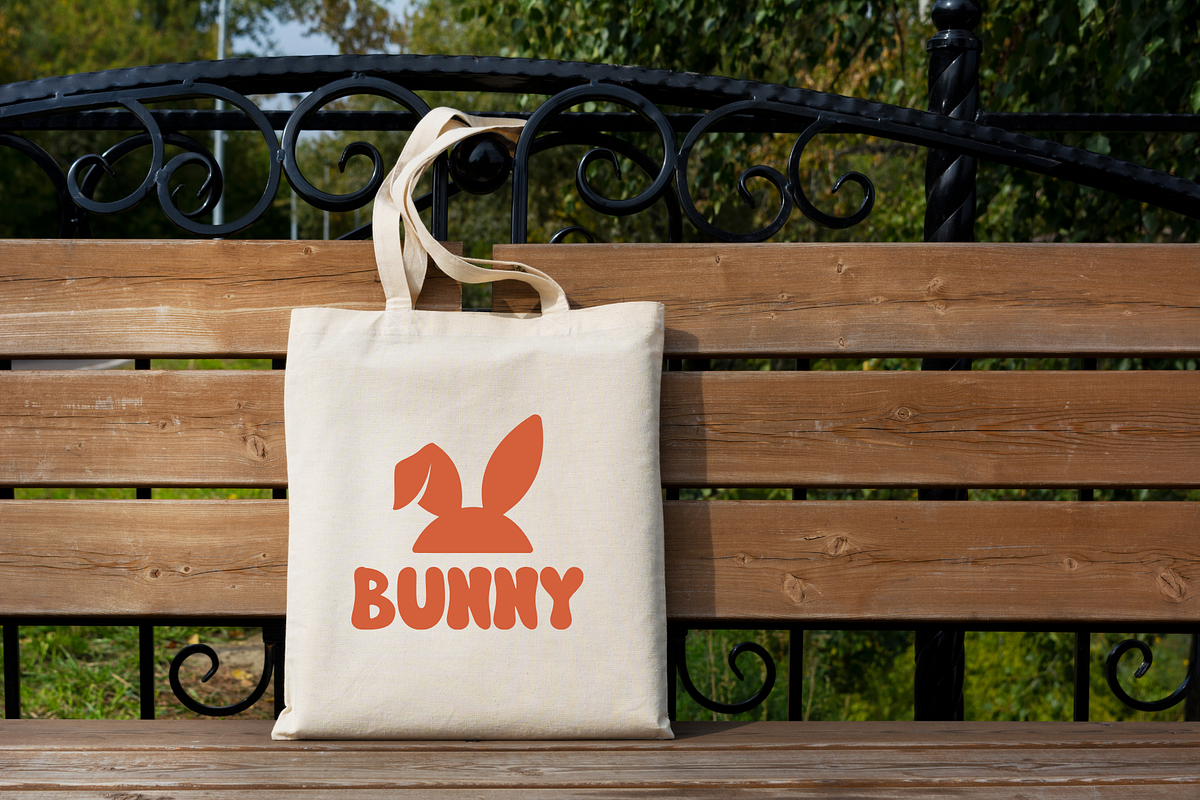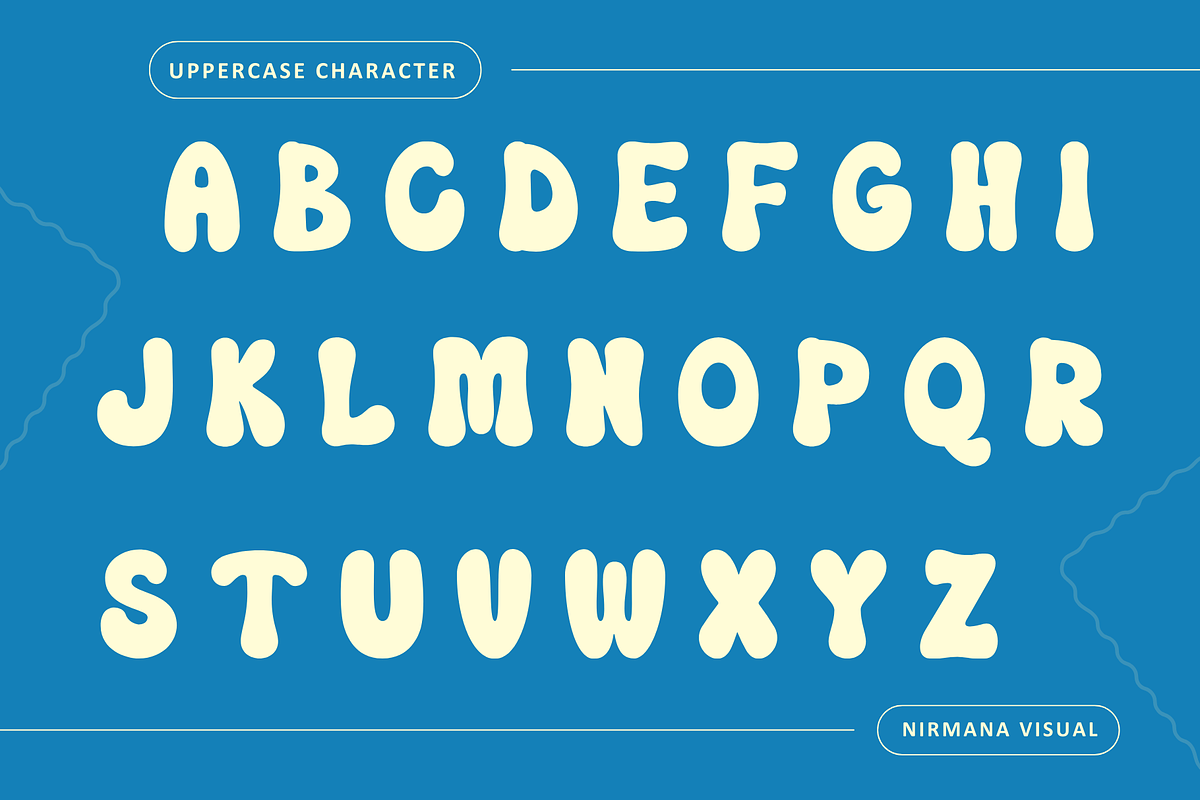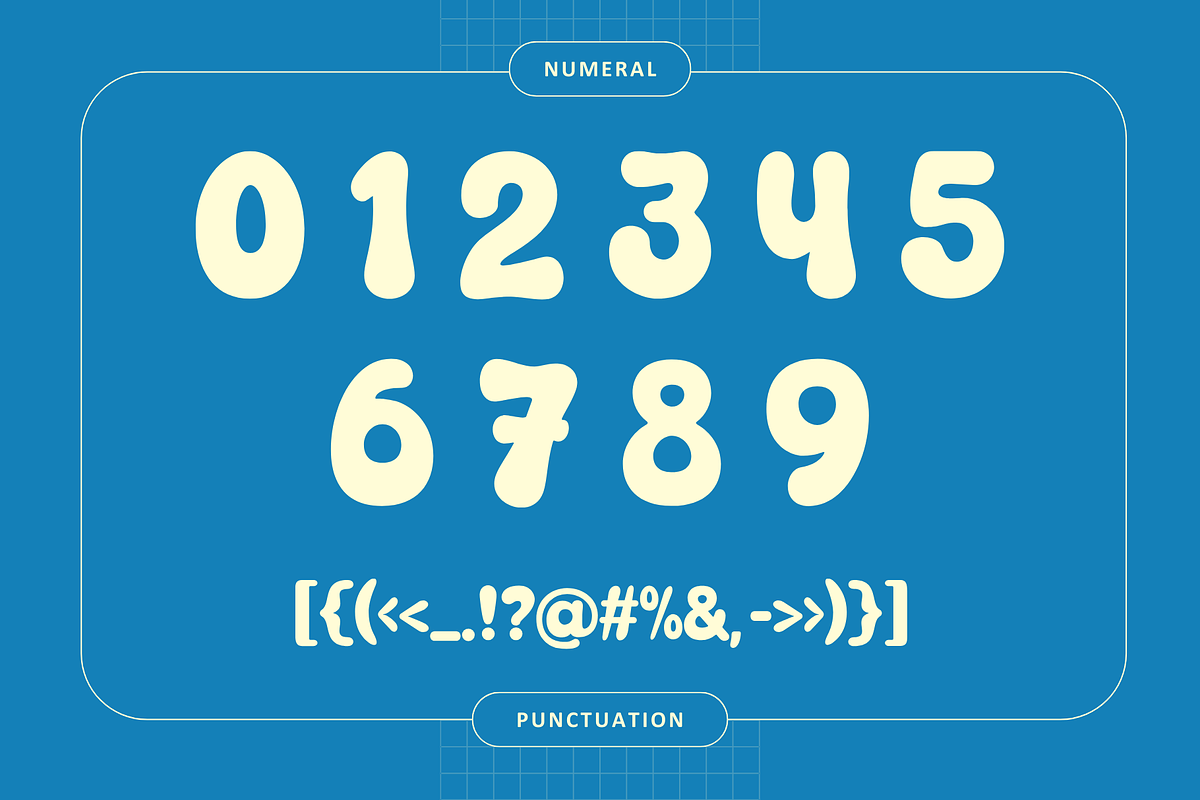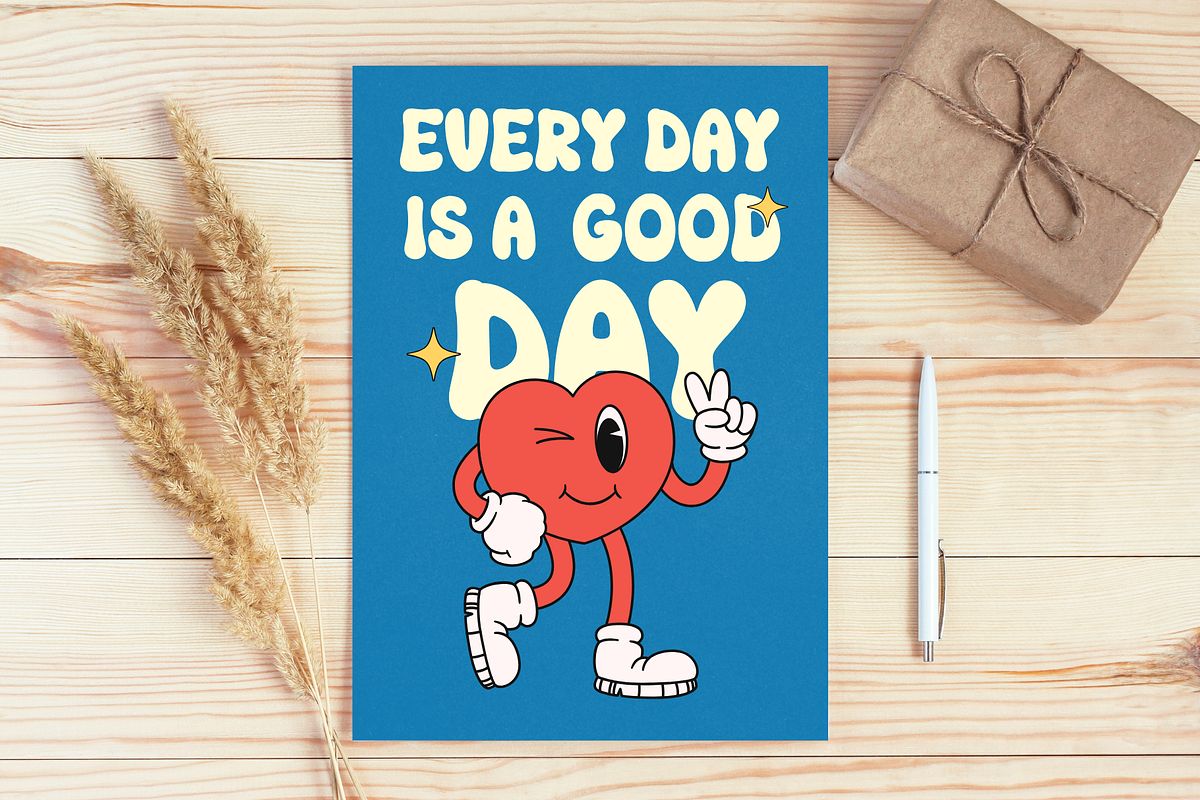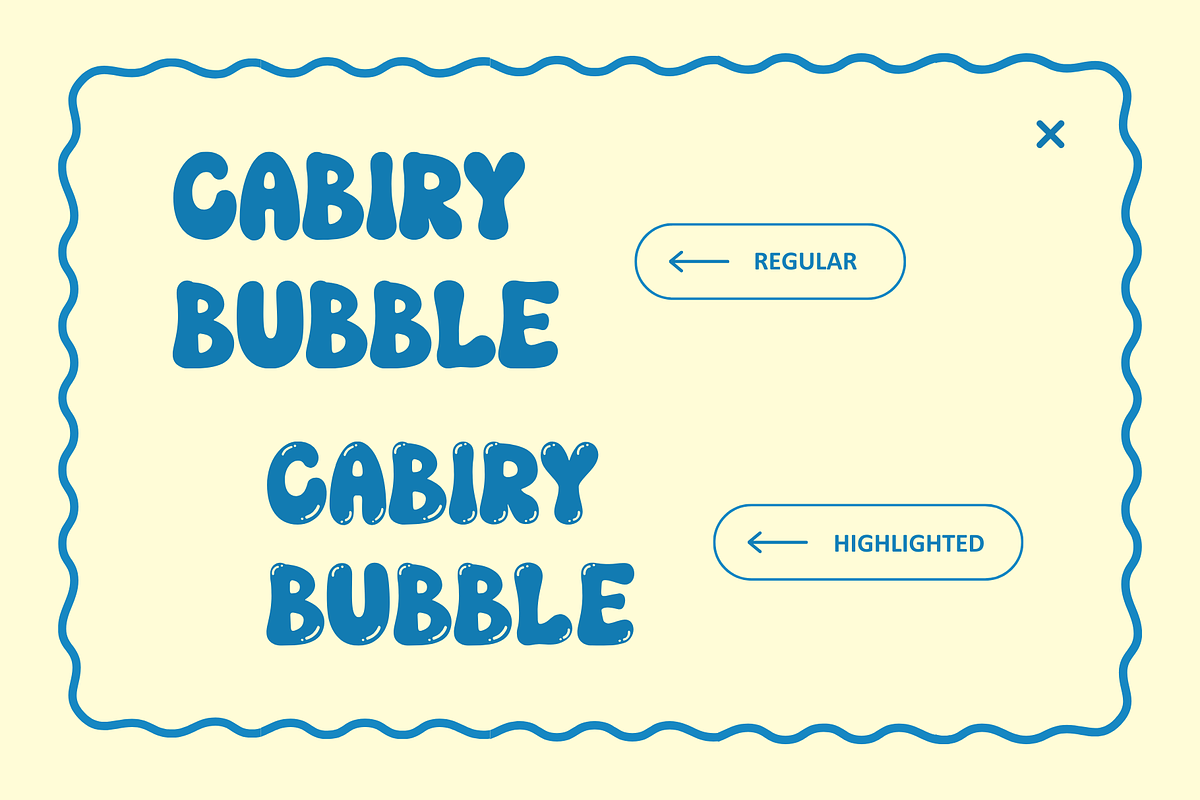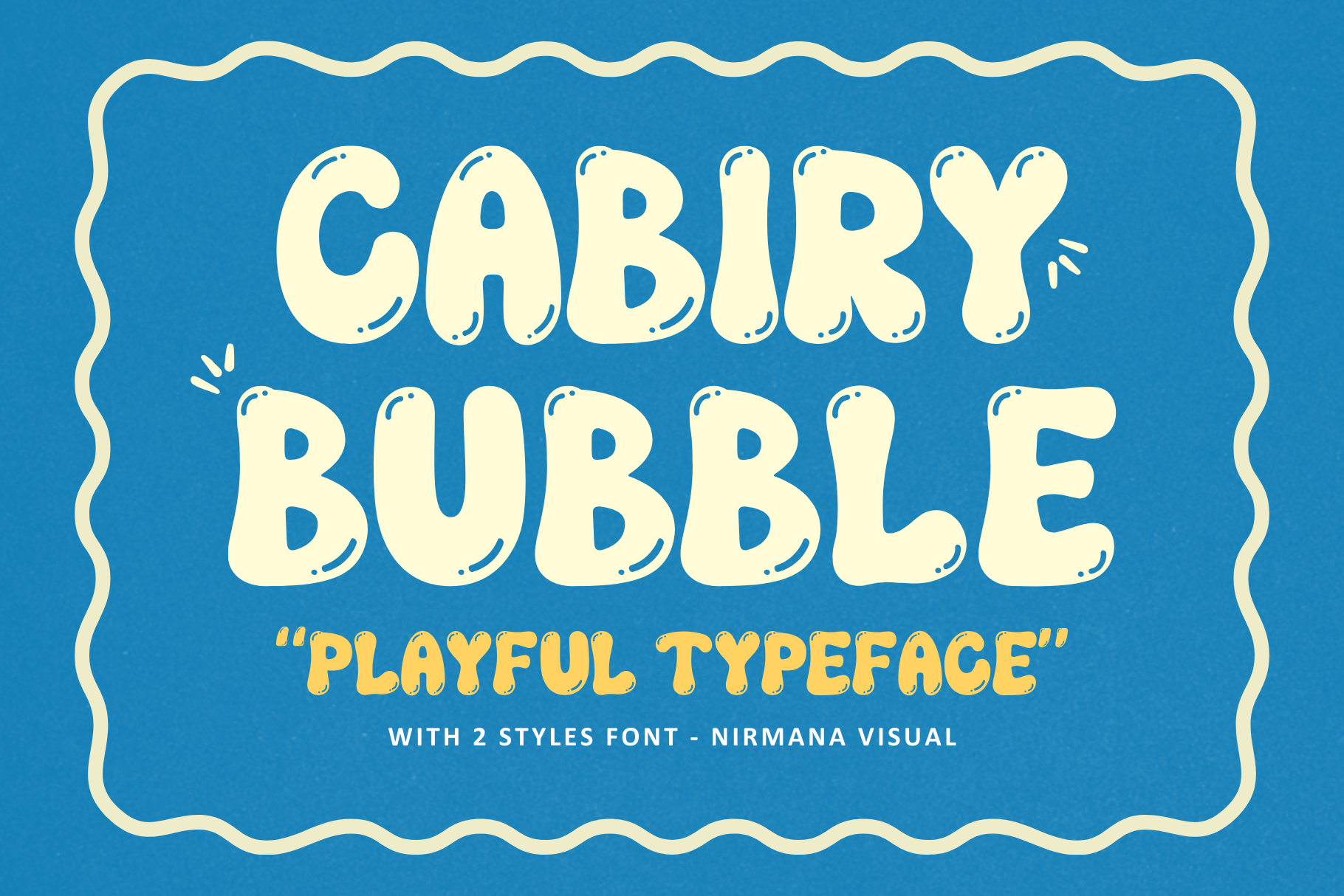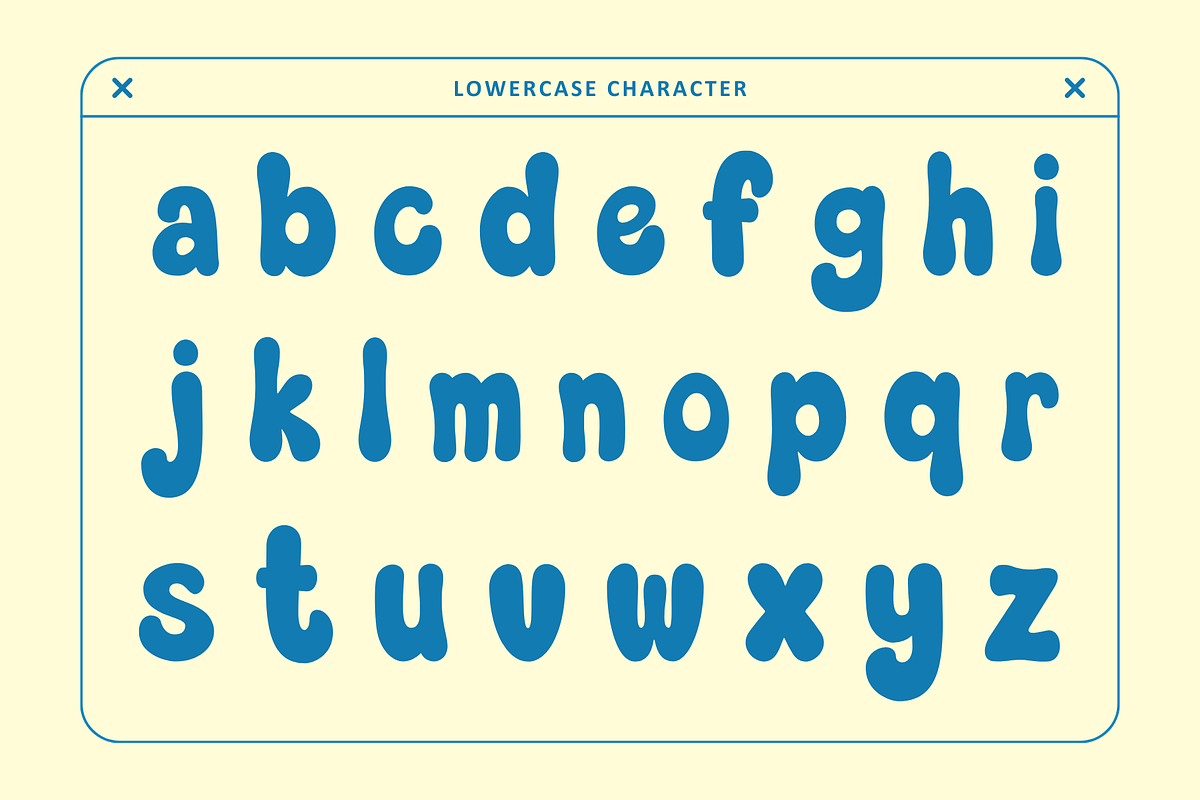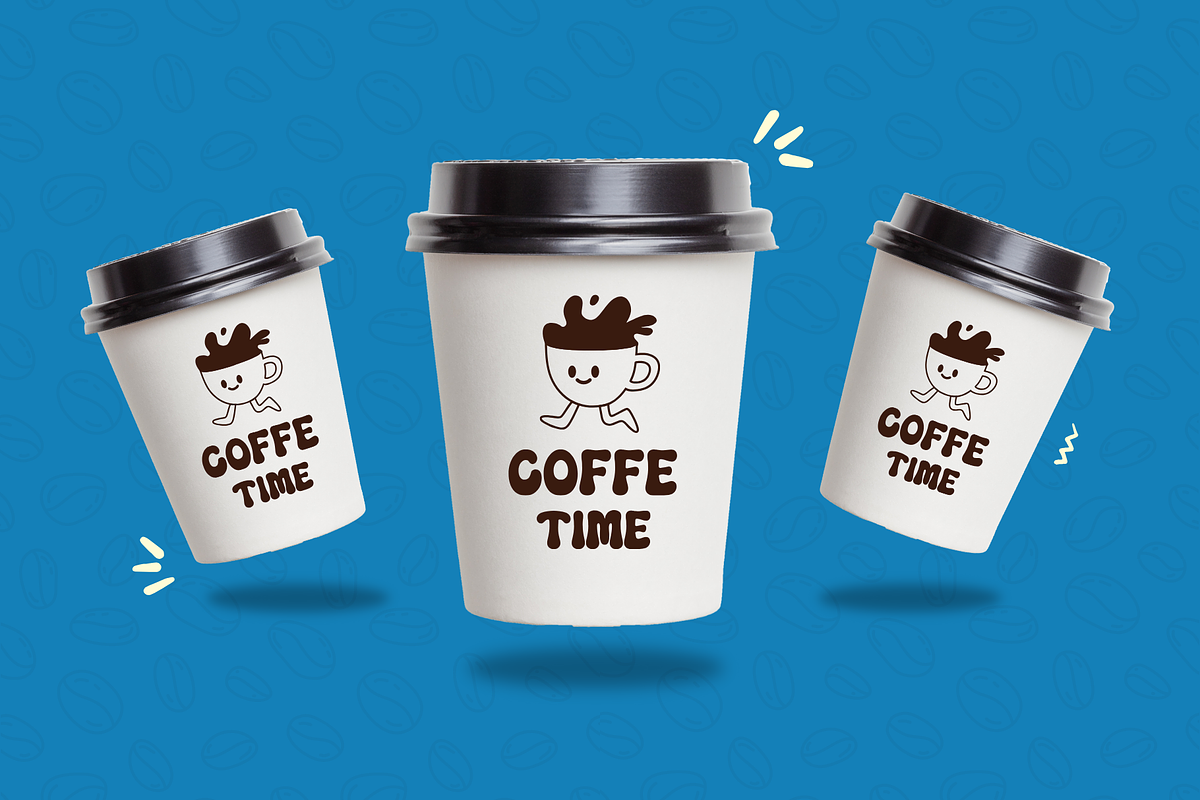
Cabiry Bubble - Branding Logo Font
Cabiry Bubble is a playful and vibrant bubble font designed to bring fun and energy to your projects. With its rounded, oversized letters and cheerful personality, Cabiry Bubble is perfect for crafting eye-catching posters, children’s designs, logos, and social media graphics. Its bubbly and dynamic style makes it ideal for conveying a sense of joy and creativity. Whether used for headlines or decorative text, Cabiry Bubble adds a whimsical and lively touch to any design.